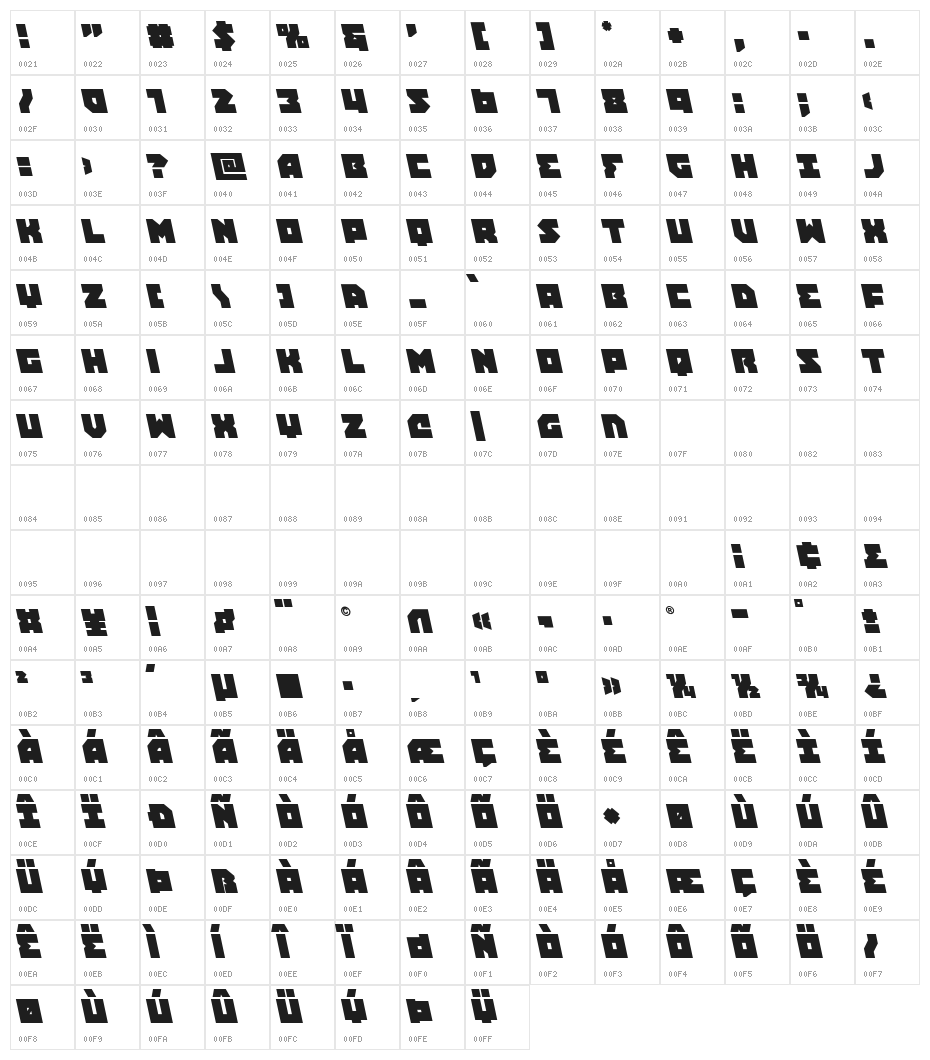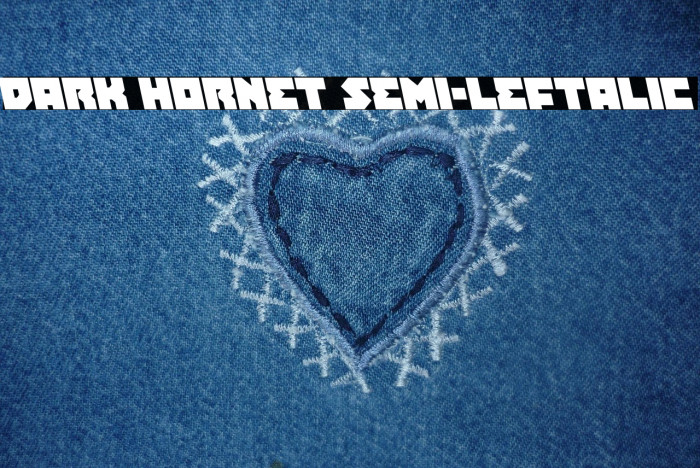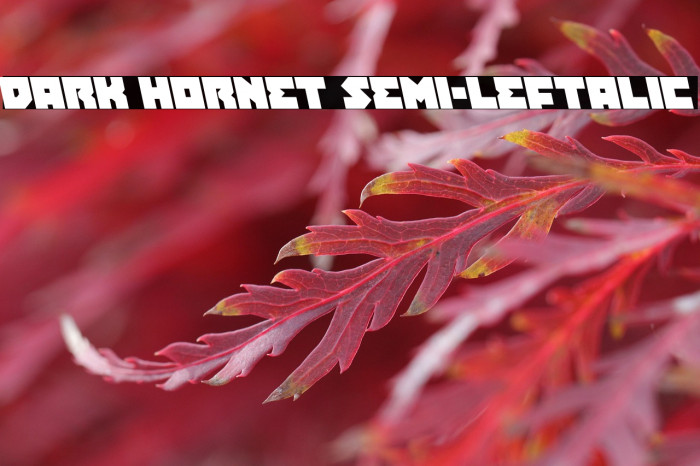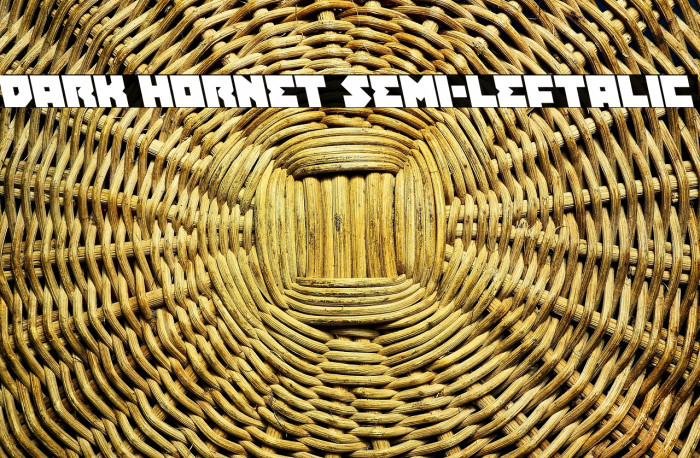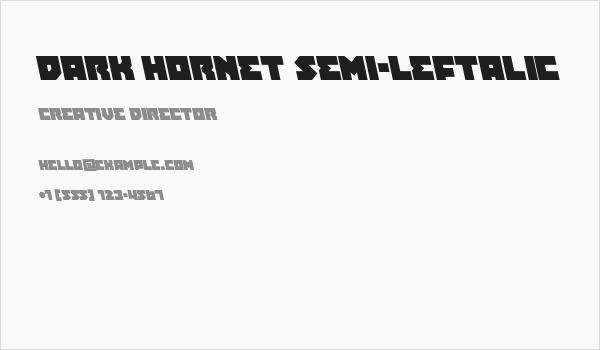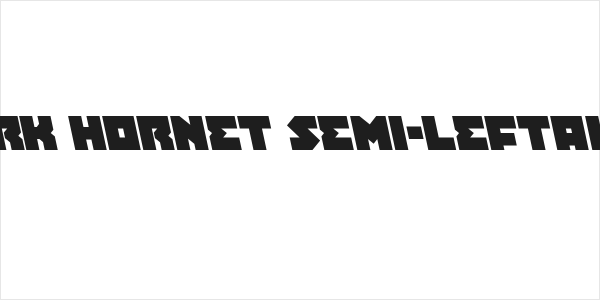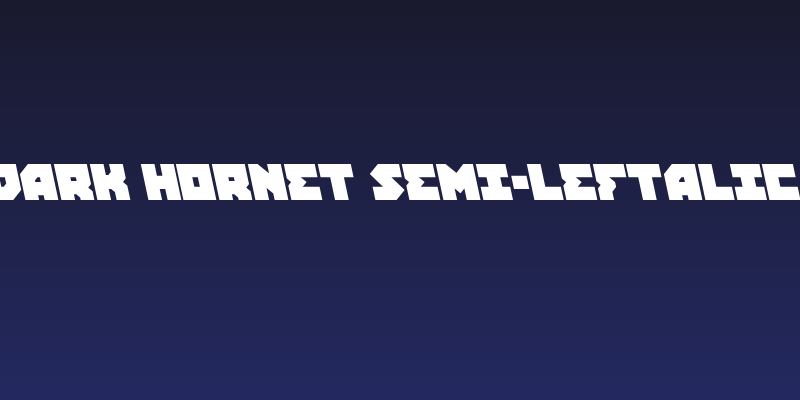
Dark Hornet Semi-Leftalic Font
Dark Hornet Semi-Leftalic Description
This font features a bold and angular design with a distinct geometric style. The characters are heavily stylized with sharp edges and a blocky appearance, giving it a futuristic and aggressive look. The uppercase and lowercase letters maintain a consistent width, creating a uniform appearance across the text. The numbers and special characters follow the same design principles, ensuring cohesion throughout. The font's unique style makes it stand out, suitable for projects that require a strong visual impact.
| Proposed Projects | Ideal for video game titles, sci-fi movie posters, tech branding, and edgy graphic design projects. |